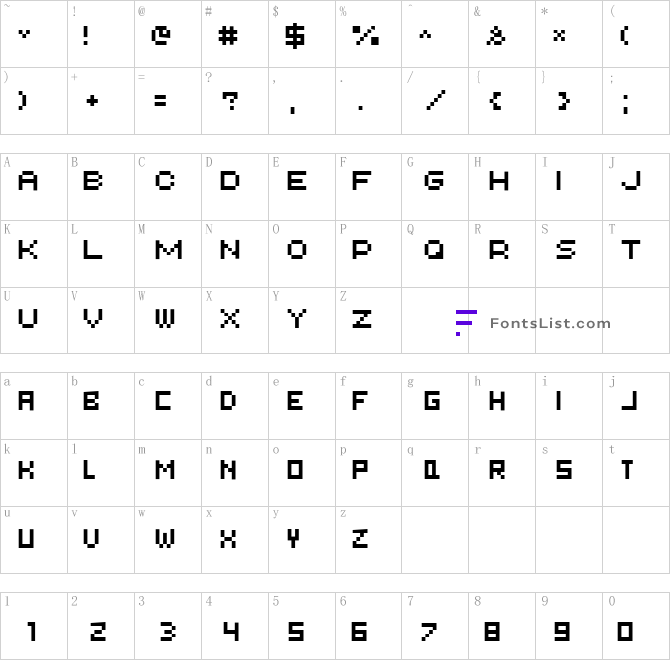
- Font Name:AuX DotBitC SmallCaps
AuX-DotBitC-SmallCaps.ttf is a very beautiful artistic font, AuX-DotBitC-SmallCaps.ttf is widely used in the design and printing of various books and pictures,AuX-DotBitC-SmallCaps.ttf has a strong visual impact,AuX-DotBitC-SmallCaps.ttf is a commonly used font in newspapers, magazines and books, and is used in posters, e-commerce Poster design, store design, logo design, font design and other fields.AuX-DotBitC-SmallCaps.